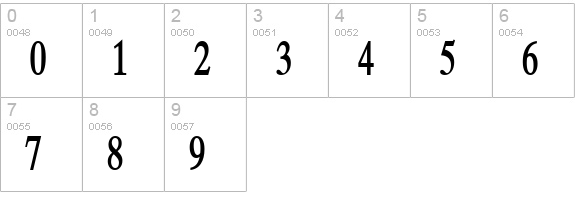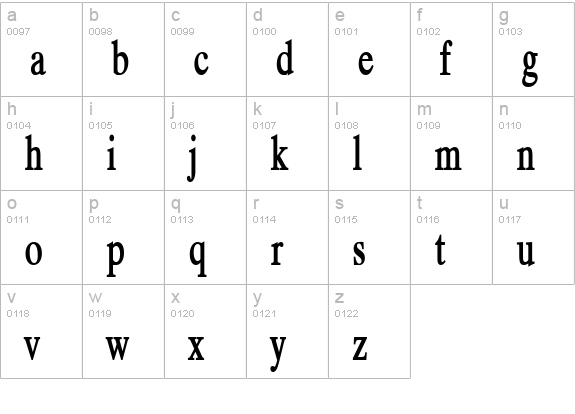
Duke Condensed Bold Font Details
Duke Condensed Bold is a strong, high-contrast, condensed-width variant in the Duke typeface family \xE2\x80\x94 well suited to headlines, attention-grabbing titles, and strong calls-to-action.
Duke Condensed Bold font is a modern and stylish typeface that exudes confidence and power. Its condensed design makes it perfect for headlines, titles, and branding projects where you want to make a bold statement. The strong, thick strokes of this font give it a commanding presence on the page, while the sleek lines and sharp edges add a touch of sophistication. And the best part? Duke Condensed Bold font is available for free download at FontsMarket.com! Now you can elevate your designs with this striking typeface without breaking the bank. Whether you're working on posters, logos, packaging, or any other creative project, Duke Condensed Bold font will help you stand out and make a lasting impression. Download it today and take your designs to the next level!